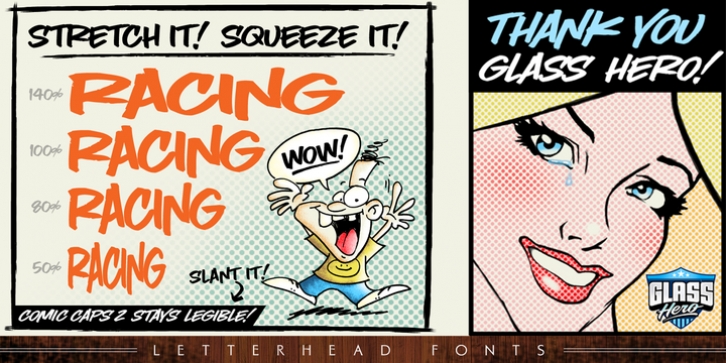
LHF Comic Caps 2 was designed by Chuck Davis and published by Letterhead Fonts. LHF Comic Caps 2 contains 2 styles and family package options.
Comic Caps is back! Direct from the hand of Chuck Davis, this completely updated version features all new letters and includes bonus swashes and balloons designed to compliment the letters. Comic Caps 2 creates a fun, casual feel and stands up to squeezing and stretching very well. You can fit it almost anywhere.